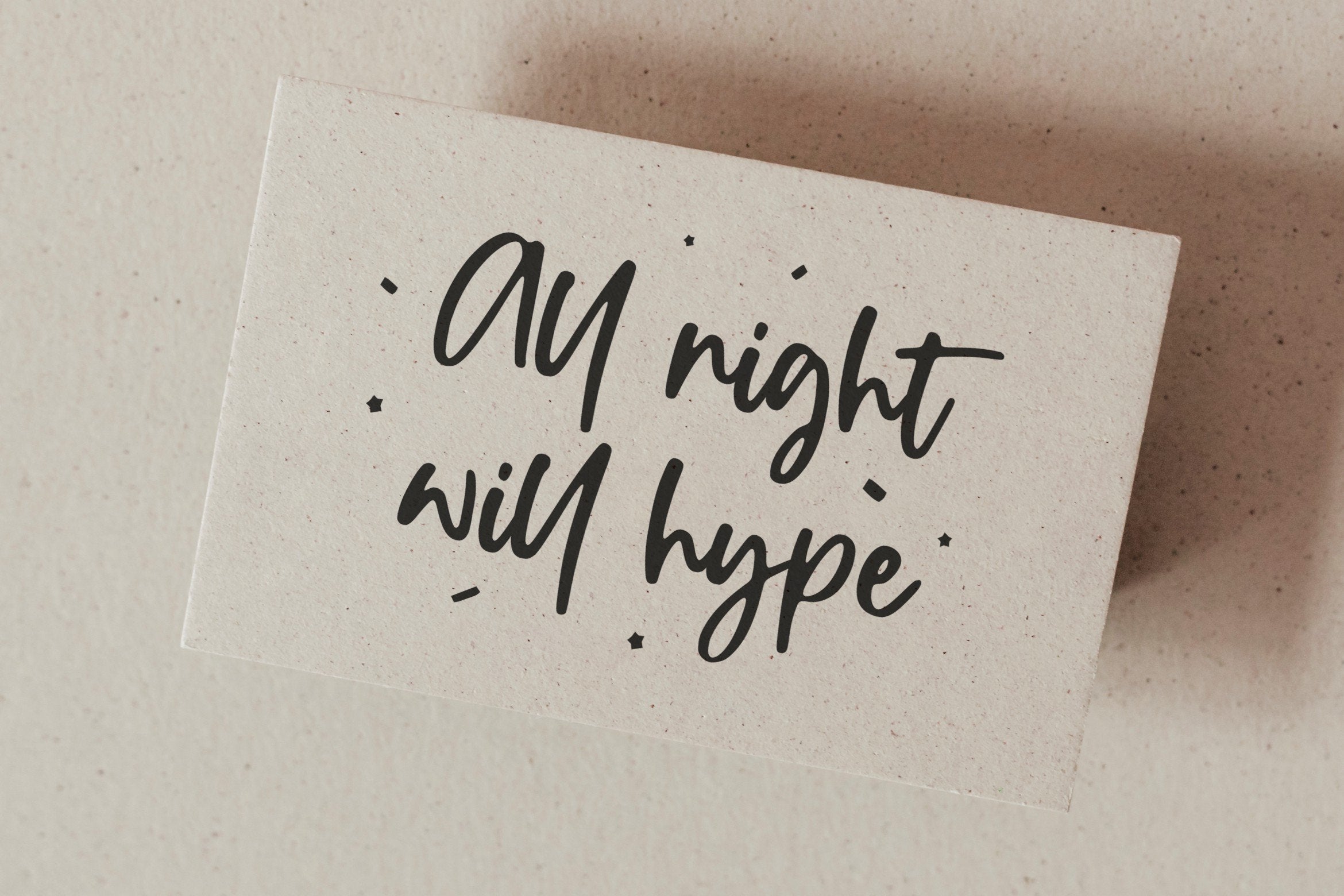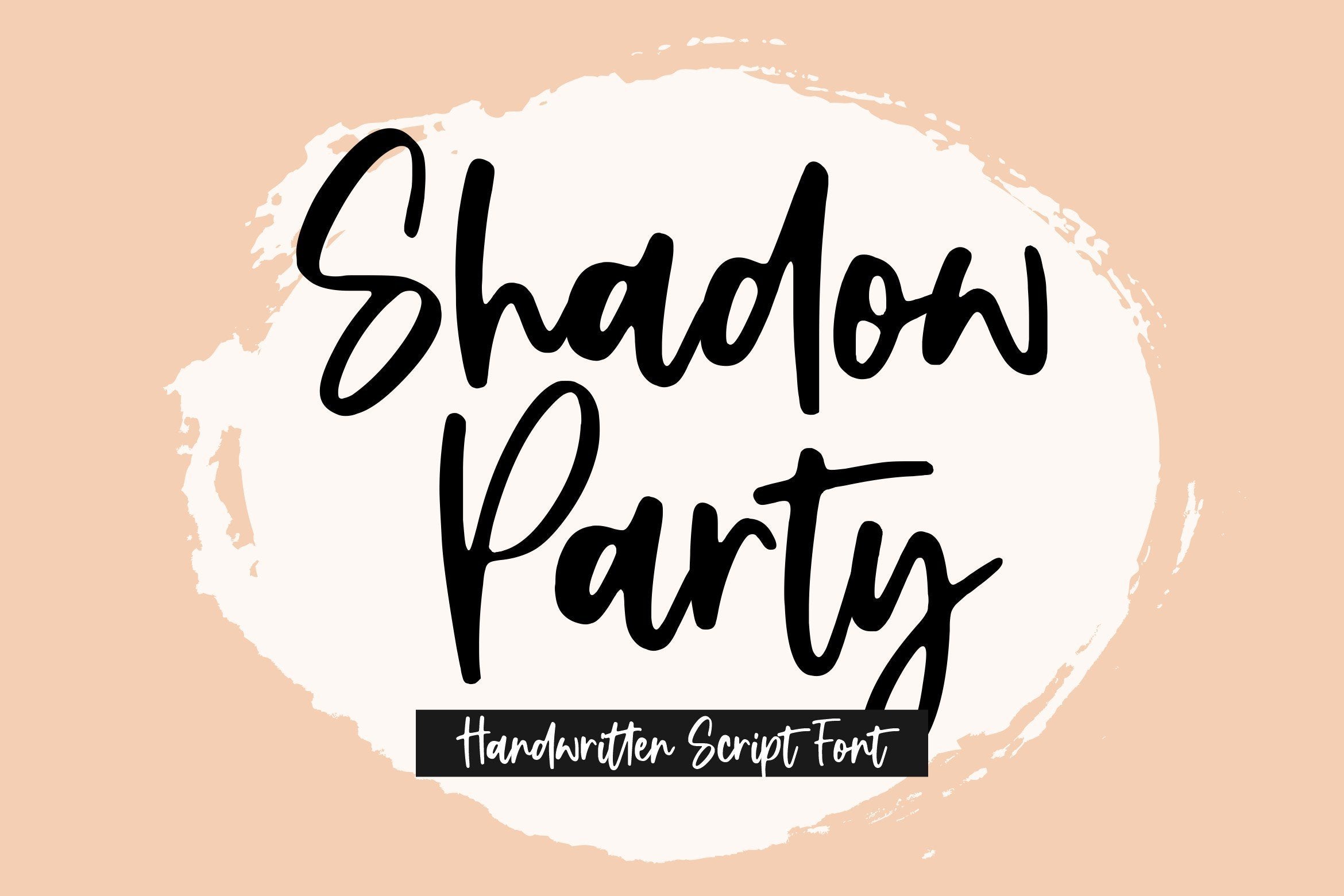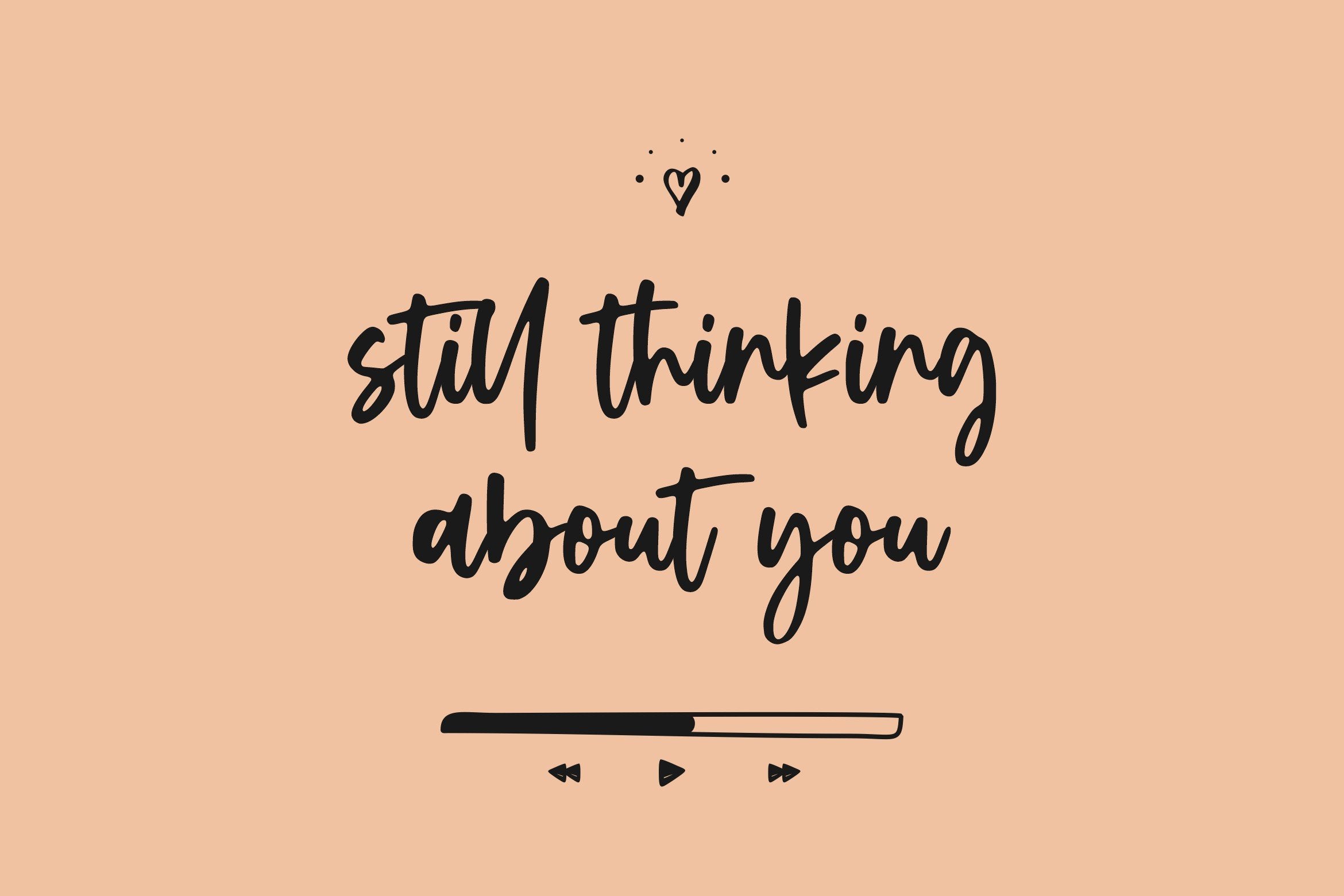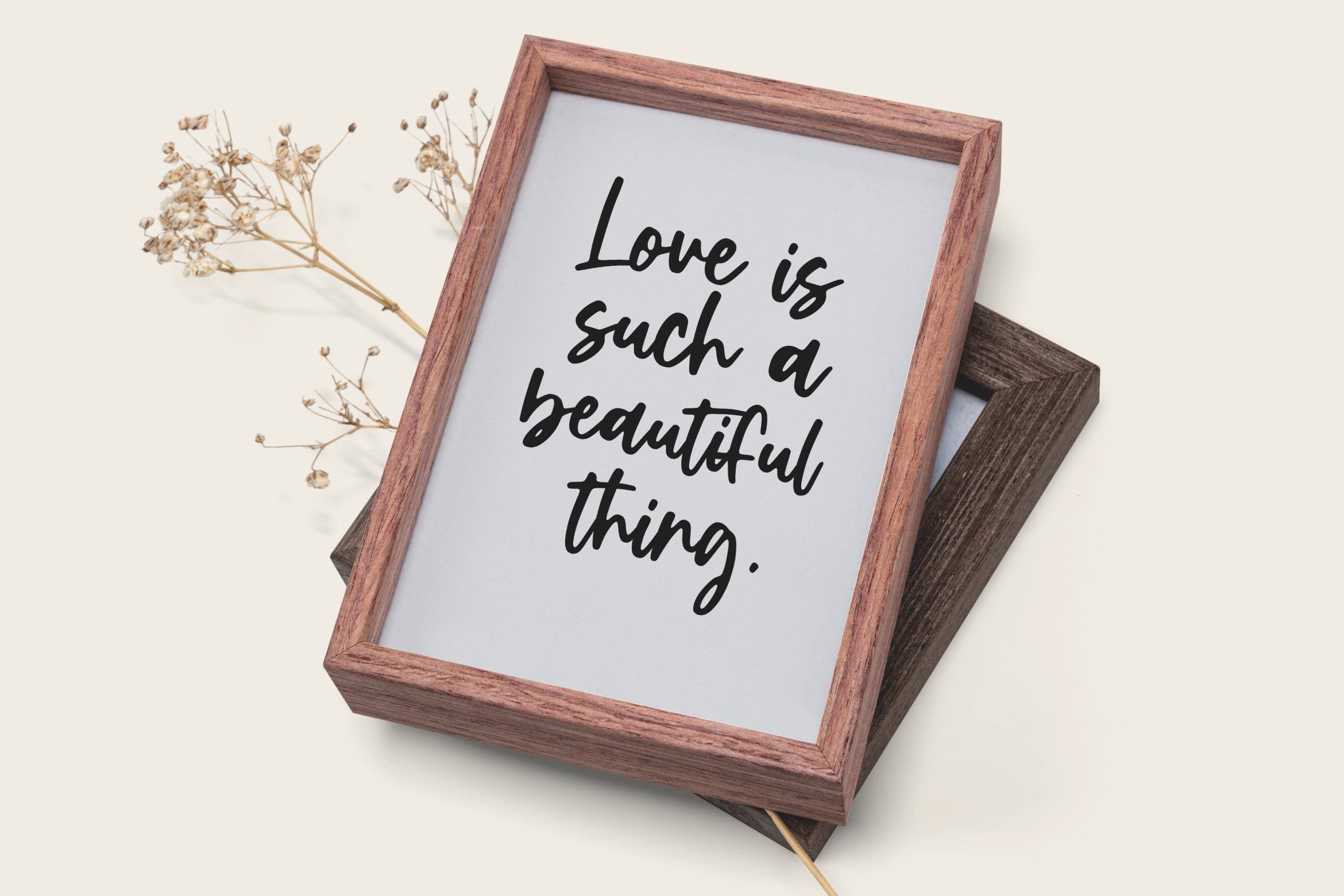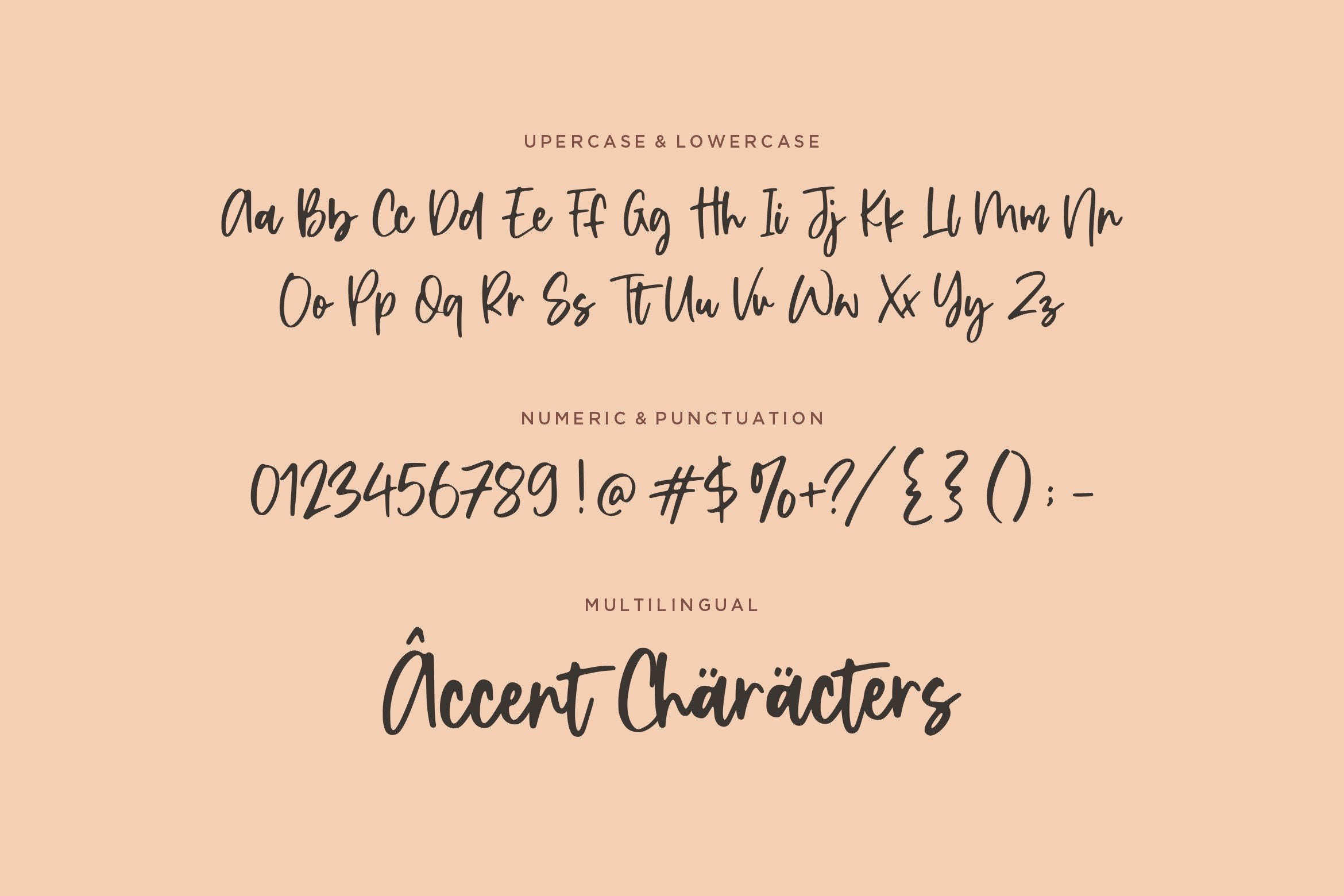
About Shadow Party Handwritten Script Font
Introducing by Balpirick Studio. Proudly Present, Shadow Party Font. Shadow Party is a Handwritten Script Font. Shadow Party is a flowing handwritten font, described by an elegant touch, perfect for your favorite projects. Fall in love with its incredibly distinct and timeless style and use it to create spectacular designs! This font includes TTF, OTF and WOFF, Shadow Party also multilingual support. Enjoy the font, feel free to comment or feedback, send me PM or email. Thank you!